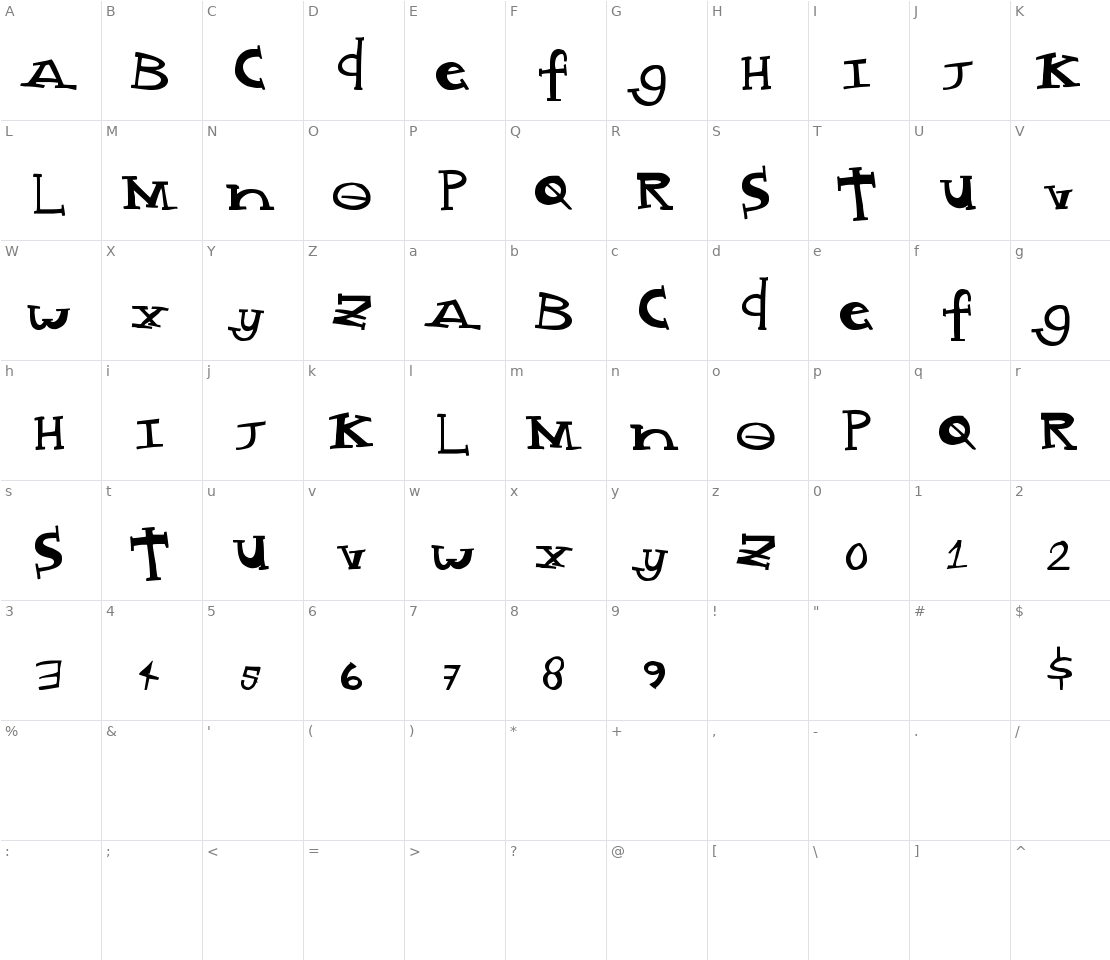
Mad Style
Mad Style from Xerographer Fonts has that cut-and-paste ransom note energy, with each letter sitting at a slightly different size, weight, or baseline as if clipped from different sources and thrown together. The mixed-case irregularity gives it a deliberately chaotic, funky personality that works for headlines, posters, and editorial pieces where you want something that feels unhinged in a playful way rather than a threatening one.